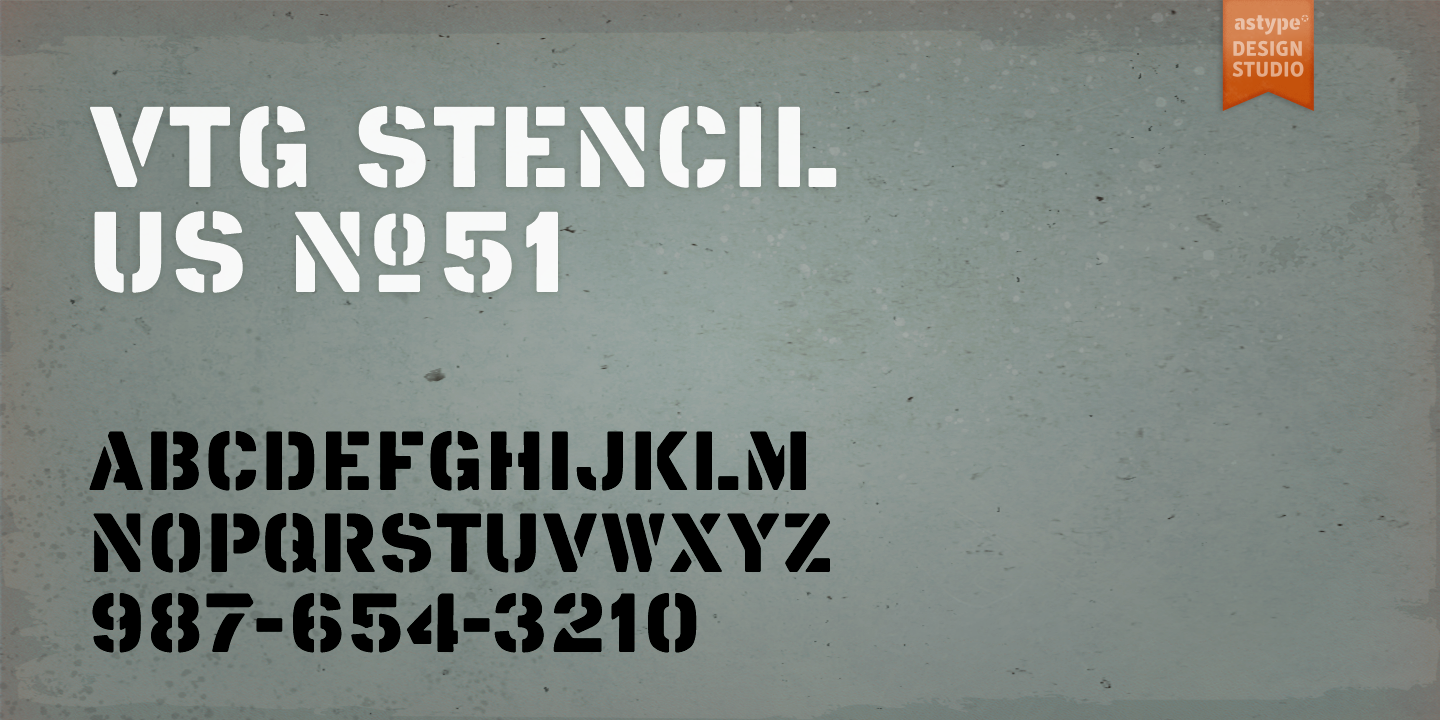
Vtg Stencil US No. 51 Font Free Download delivers authentic typography that combines military heritage with contemporary functionality for industrial design applications. This commercial font requires purchase for business use, but you can download it for free for testing purposes to evaluate its distinctive vintage stencil characteristics in your creative projects.
Vtg Stencil US No. 51 Font excels across diverse design applications including military contractor branding, vintage industrial packaging, army surplus marketing, historical documentation, tactical gear communications, wartime memorial materials, vintage transportation signage, and heritage military publications. Its authentic character makes it particularly effective for projects requiring historical accuracy while maintaining contemporary readability, ensuring your designs convey military heritage and industrial authenticity across both digital platforms and weathered print materials.
What makes Vtg Stencil US No. 51 Font truly exciting is its masterful recreation of authentic American military stencil typography enhanced with modern design precision that creates compelling historical communications. The font features meticulously crafted letterforms that incorporate genuine stencil cutting patterns and military proportions reminiscent of World War II-era equipment markings while maintaining excellent readability and professional application. Its distinctive character construction draws inspiration from official U.S. military stencil specifications and vintage industrial marking systems, creating text that feels both historically authentic and contemporarily relevant. The font's optimized spacing and stencil-accurate character relationships ensure superior performance across various heritage applications while preserving the characteristic authority that defines its military personality.
Vtg Stencil US No. 51 Font offers a comprehensive type family designed to support diverse military heritage and vintage industrial design requirements. The family typically includes regular and bold weights, complemented by distressed variations that provide complete flexibility for authentic stencil typography compositions. Many versions feature extended character sets with military symbols, vintage markings, and specialized glyphs that enhance genuine historical aesthetic applications.
The Vtg Stencil US No. 51 Font Free Download represents outstanding value for designers working on military heritage and vintage industrial projects across multiple sectors. Whether developing military contractor identity, creating historical exhibition materials, designing vintage transportation communications, or producing heritage documentation content, this font delivers consistent authenticity and memorable military appeal. Its stencil characteristics make it particularly effective for industries including military contracting, vintage restoration, historical preservation, and industrial heritage sectors seeking to communicate genuine military tradition and historical accuracy.
For maximum effectiveness, Vtg Stencil US No. 51 Font combines powerfully with military color schemes and vintage industrial design elements that reinforce its heritage message. Its authentic presence excels in headline applications while maintaining excellent performance in historical documentation contexts. The font's military sophistication and vintage authenticity make it an essential tool for creating historical communications that resonate with audiences appreciating military heritage and industrial craftsmanship.